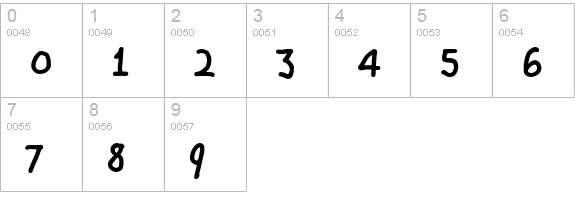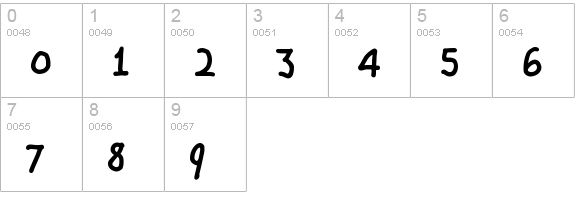
ChrisHmkBold Font Details
ChrisHmkBold is a modern and stylish font that exudes confidence and sophistication. Its bold and sleek design makes it perfect for creating eye-catching headlines, titles, and branding materials. The strong and sharp lines of this font give it a powerful presence on any design project. Whether you are working on a poster, logo, or website, ChrisHmkBold will make your text stand out and grab attention. Its versatility allows it to be used in a variety of design styles, from elegant and formal to bold and edgy. Best of all, ChrisHmkBold is available for free download at FontsMarket.com. You can easily access this font and enhance your projects with its unique and impactful appearance. Don't miss out on this opportunity to elevate your designs with the distinctive flair of ChrisHmkBold.